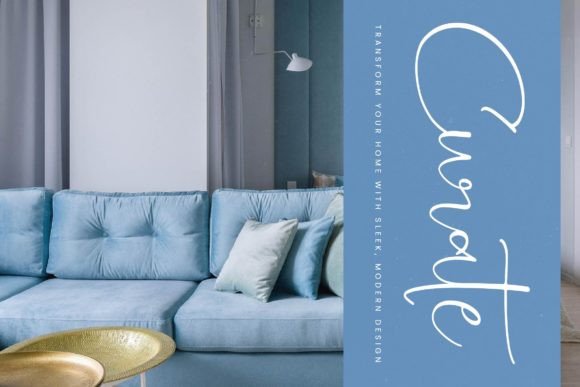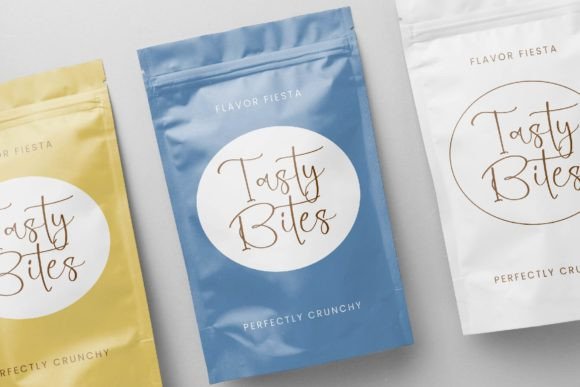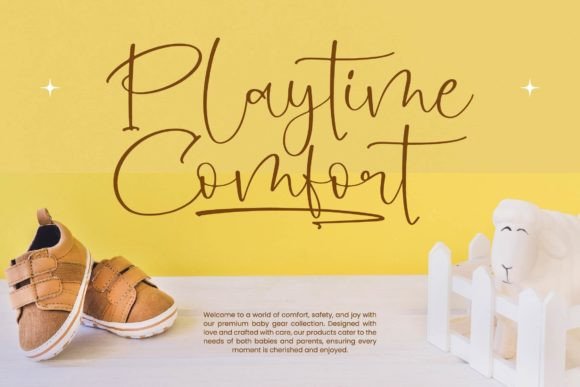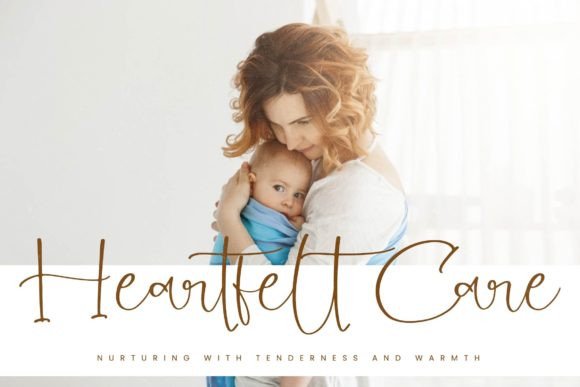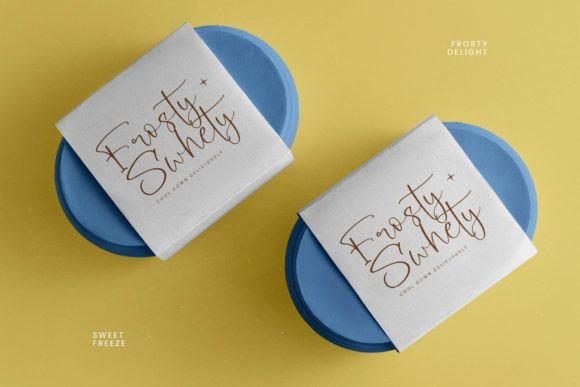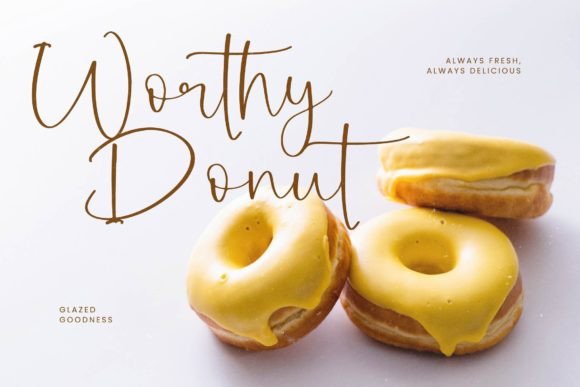
Unleash the Magic of Easter Celebrations with Celebrate Easteria Font
As a designer, there’s nothing quite like the thrill of brainstorming a new project – the blank canvas, the endless possibilities, and the chance to bring a unique vision to life. For many of us, the Easter season is a time of renewal and celebration, filled with vibrant colors, whimsical decorations, and heartfelt gestures. It’s the perfect moment to unleash your creativity and make your designs truly special.
That’s where Celebrate Easteria Font comes in – a stunning, modern handwritten luxury script font designed to add an extra touch of elegance and sophistication to your projects. With its versatility and versatility, Celebrate Easteria Font is the perfect choice for designers looking to elevate their branding, packaging, and homeware designs. Whether you’re working on a logo, invitation, or product packaging, this font is sure to make a lasting impression.
Celebrate Easteria Font Key Features
- Font Family: Celebrate Easteria Font is a custom-designed font family with 6 styles (Regular, Italic, Bold, Bold Italic, Outline, and Fill) to cater to various design needs.
- Character Set: The font includes a comprehensive set of characters, including Latin, Cyrillic, and Greek alphabets, as well as punctuation marks and symbols.
- Unique Characteristics: Celebrate Easteria Font features a unique, hand-drawn design with intricate details and flourishes, giving it a distinctive and festive feel.
Celebrate Easteria Font Review
Overall, I think the Celebrate Easteria Font has some lovely qualities, but also some areas where it falls short. ✨ Let’s dive in!
- Unique Easter-themed characters: The font includes special characters like Easter eggs, bunnies, and flowers that add a playful touch to any design.
- High-resolution designs: The font’s high-resolution designs ensure that the characters look crisp and clear, even at larger sizes.
- Fun, celebratory feel: The Celebrate Easteria Font captures the spirit of Easter perfectly, making it ideal for spring-themed designs.
- ⚠️ Limited character set: While the font includes unique Easter characters, it’s missing some basic characters, like punctuation marks and numbers.
- ⚠️ Not suitable for serious designs: The font’s playful, celebratory feel may not be suitable for more serious or formal designs.
Overall, I think the Celebrate Easteria Font is a great choice for spring-themed designs, parties, or other festive events. However, it may not be the best fit for more serious or everyday designs.
Use the Celebrate Easteria Font to create eye-catching designs for Easter-themed events, invitations, and marketing materials.
Experiment with different font sizes, colors, and combinations to achieve a unique look.
Use the Celebrate Easteria Font for:
Easter-themed social media posts and graphics.
Invitations and party decorations for Easter events.
Marketing materials, such as flyers and brochures, for Easter-related businesses.